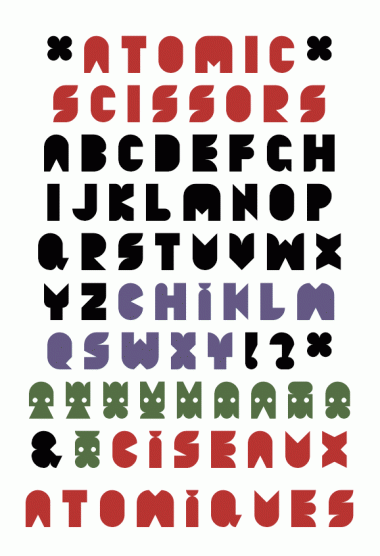
atomic scissors
Heavy duty cutout font. Caps only, some alt characters under the lowercase keys and robots under the number keys! Enjoy.
nice gimmicks!
where are all the numbers..